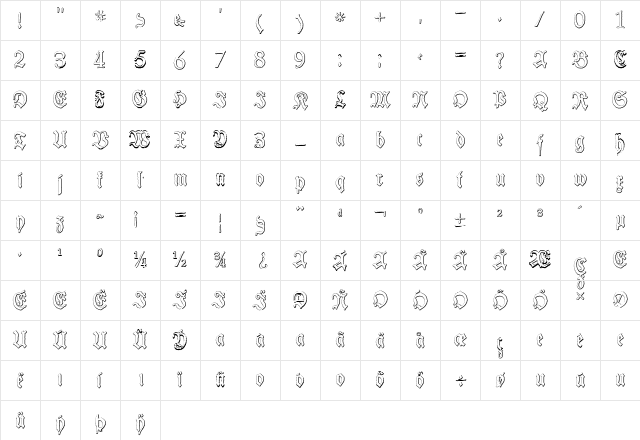
Complete Schneider Buch Deutsch Beveled Free Regular glyph index. Displaying only characters natively supported by Schneider Buch Deutsch Beveled Free Regular font.
Schneider Buch Deutsch Beveled Free is a composed and adaptable typeface that performs quietly and consistently across a wide range of design contexts.